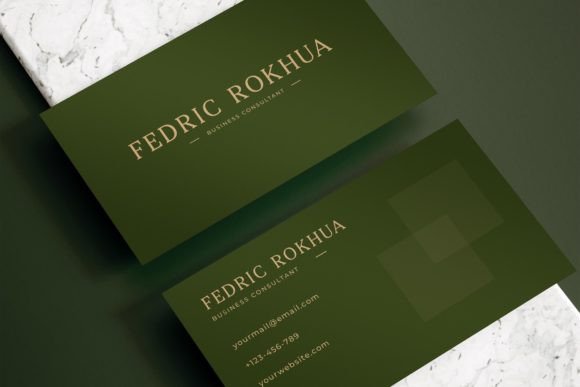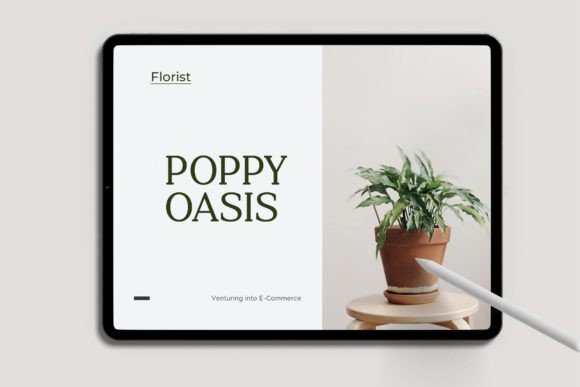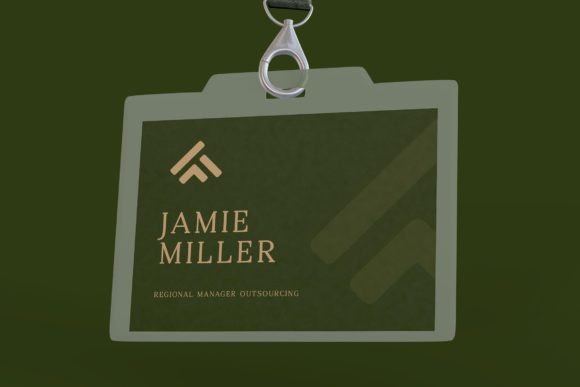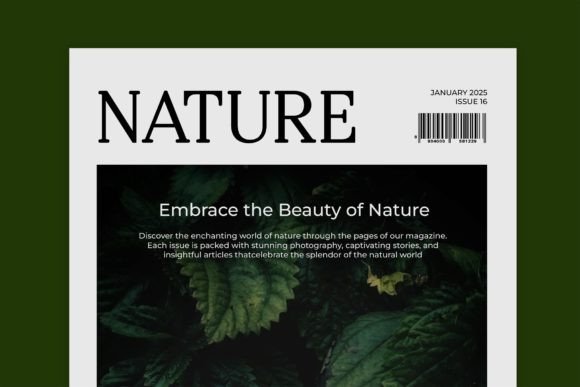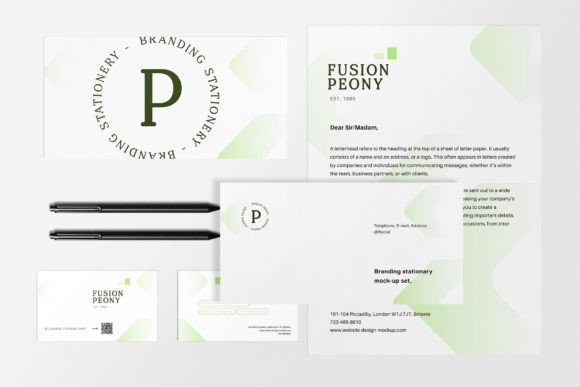
Introduction to Regime Misfiles Font
Regime Misfiles – Serif Oldstyle Font , from Letterena, is a Luxury Serif font, suitable for any projects such as: logos, branding projects, homeware designs, product packaging, mugs, quotes, posters, shopping bags, t-shirts, book covers, name card, invitation cards, greeting cards, label, photography, watermark, special events, and all your other luxury and beautiful projects that need a Luxury Serif taste.
Key Features of Regime Misfiles Font
Why Choose Regime Misfiles Font?
Regime Misfiles Font offers exceptional quality and versatility, making it a valuable addition to your design toolkit. Whether you’re creating for personal projects or commercial use, Regime Misfiles Font delivers professional results.